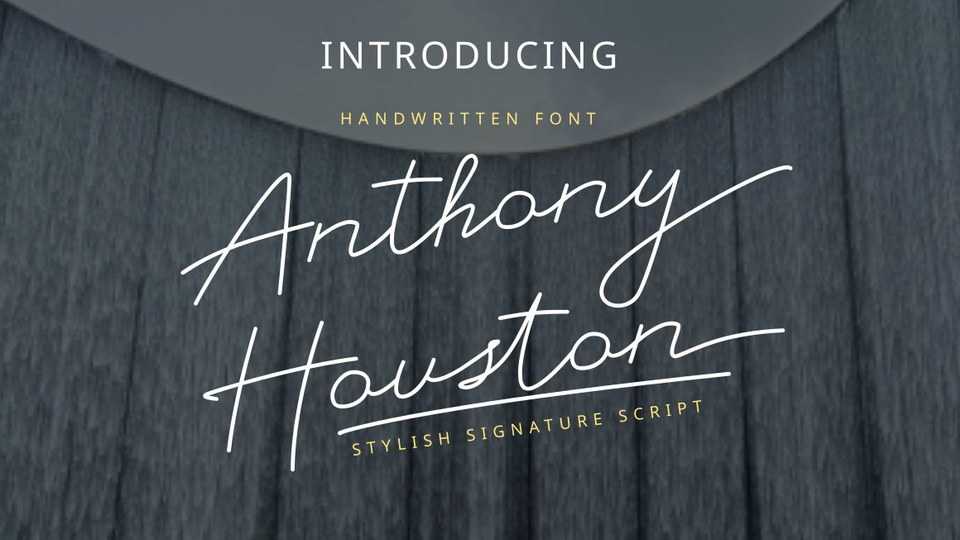
Download Anthony Houston font, a thin and refined script typeface. It has a classy, elegant and modern look that can be used for logos, branding, invitations, stationery, wedding designs, social media posts, and much more.
Designer: Rissyletter Studio